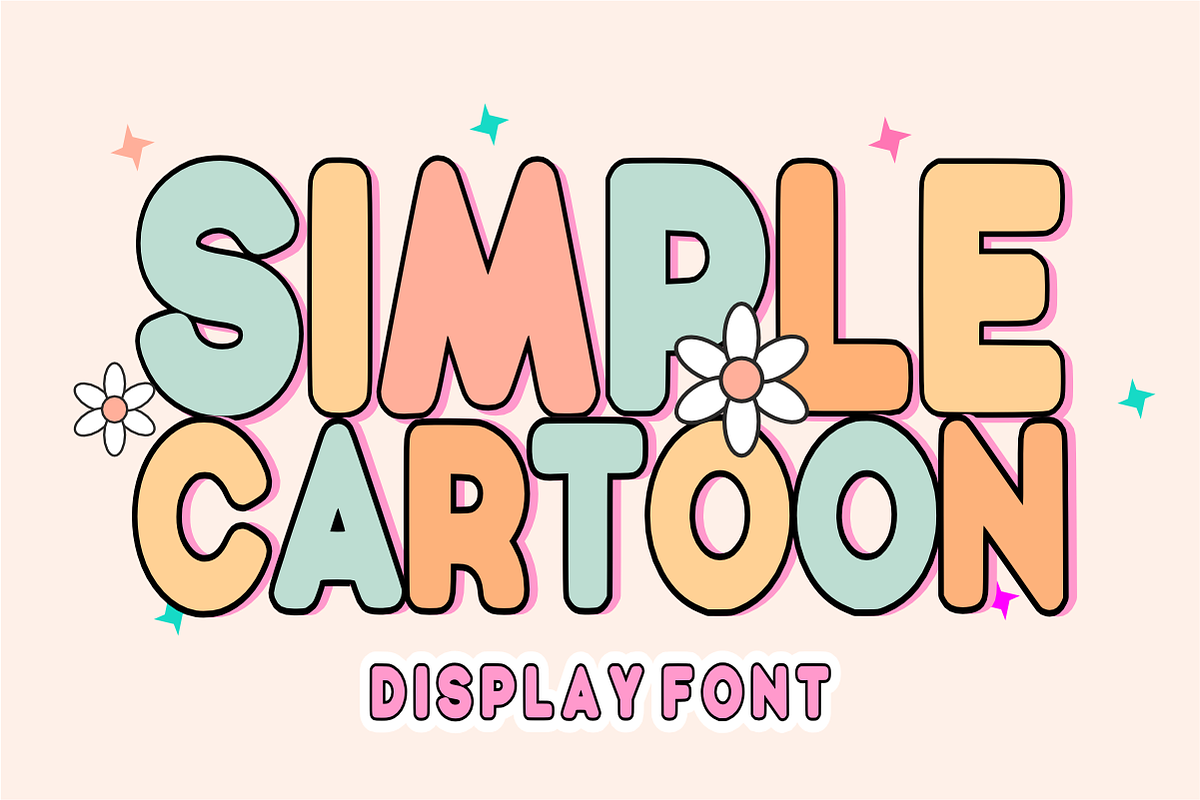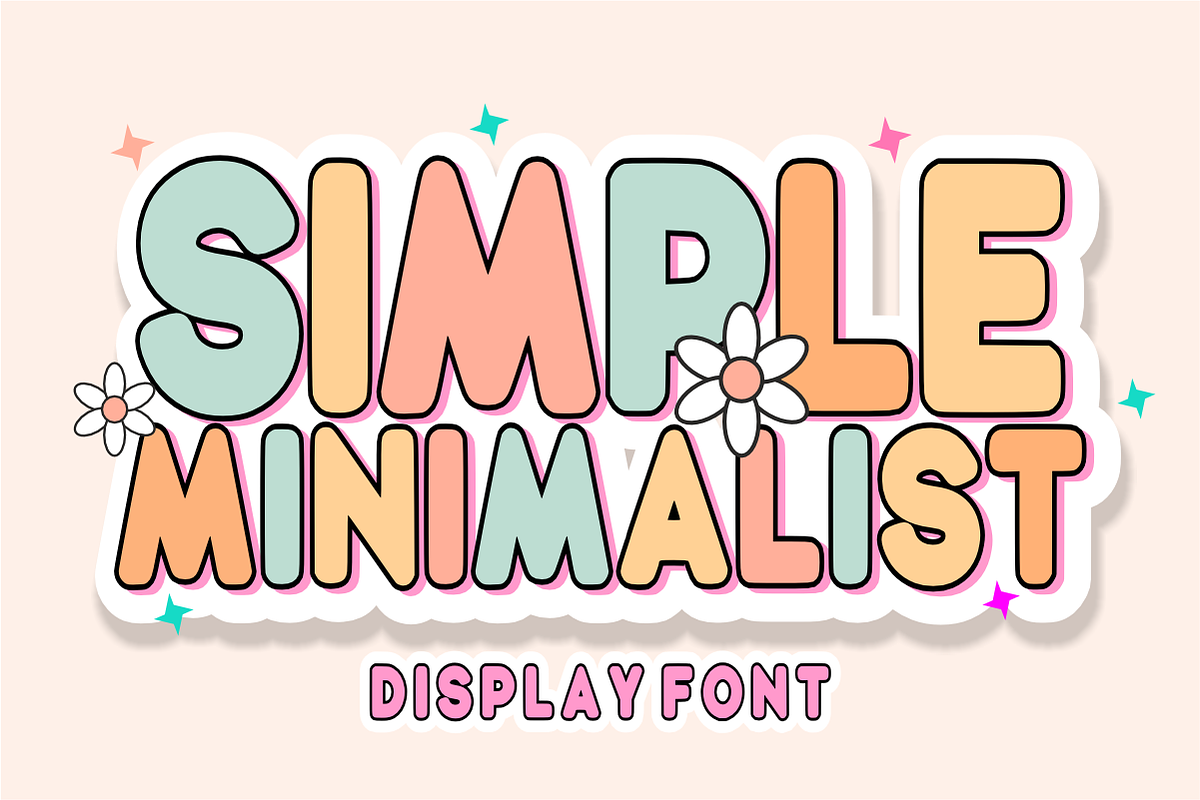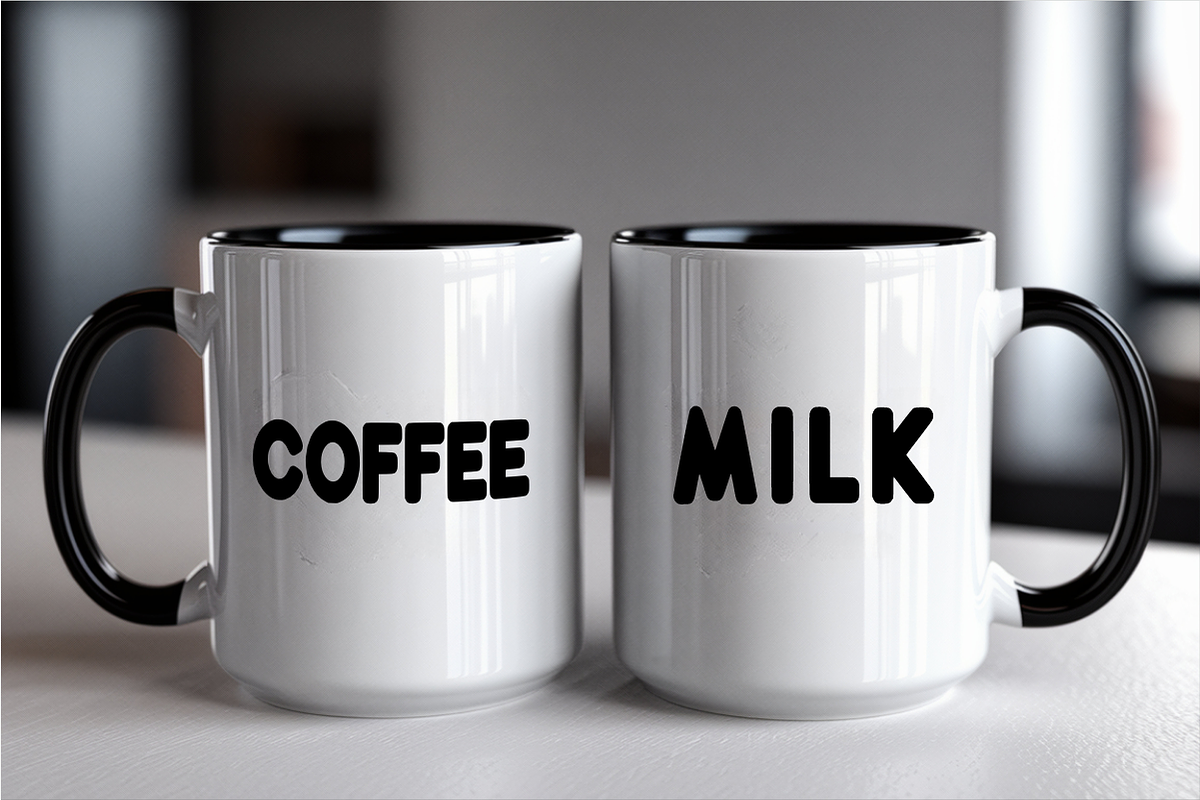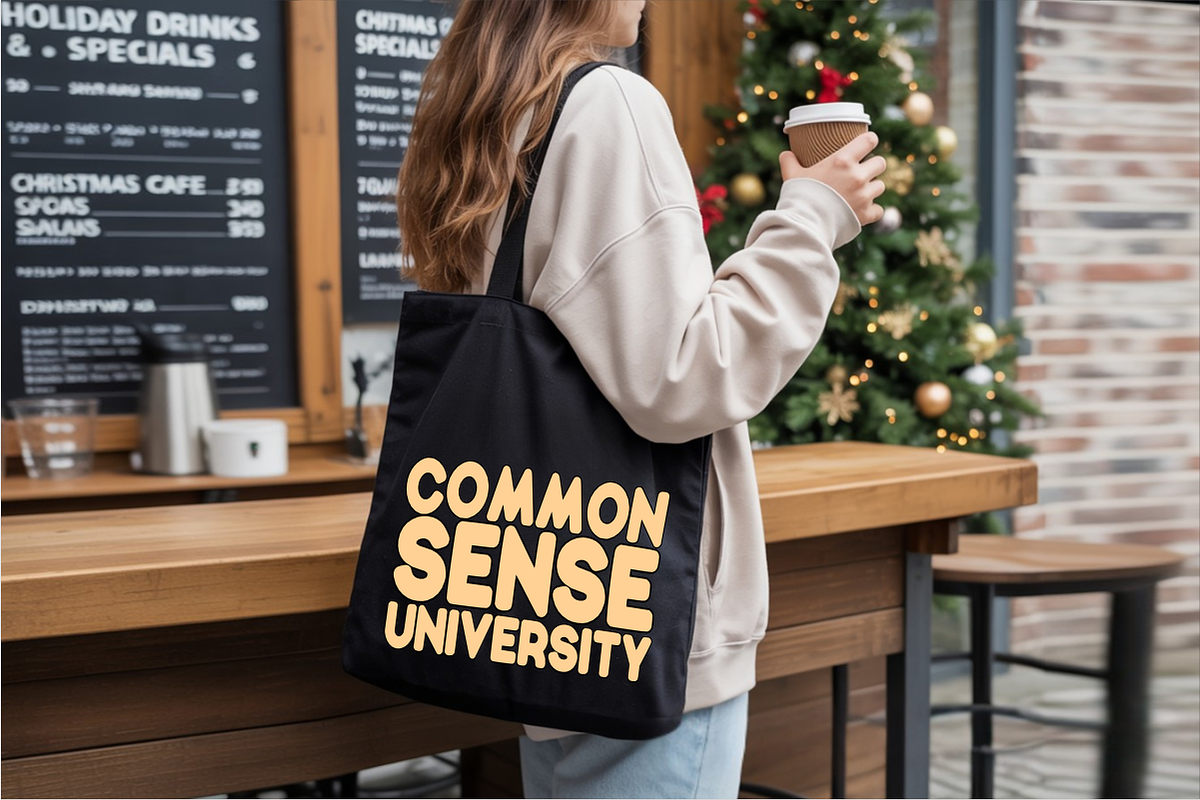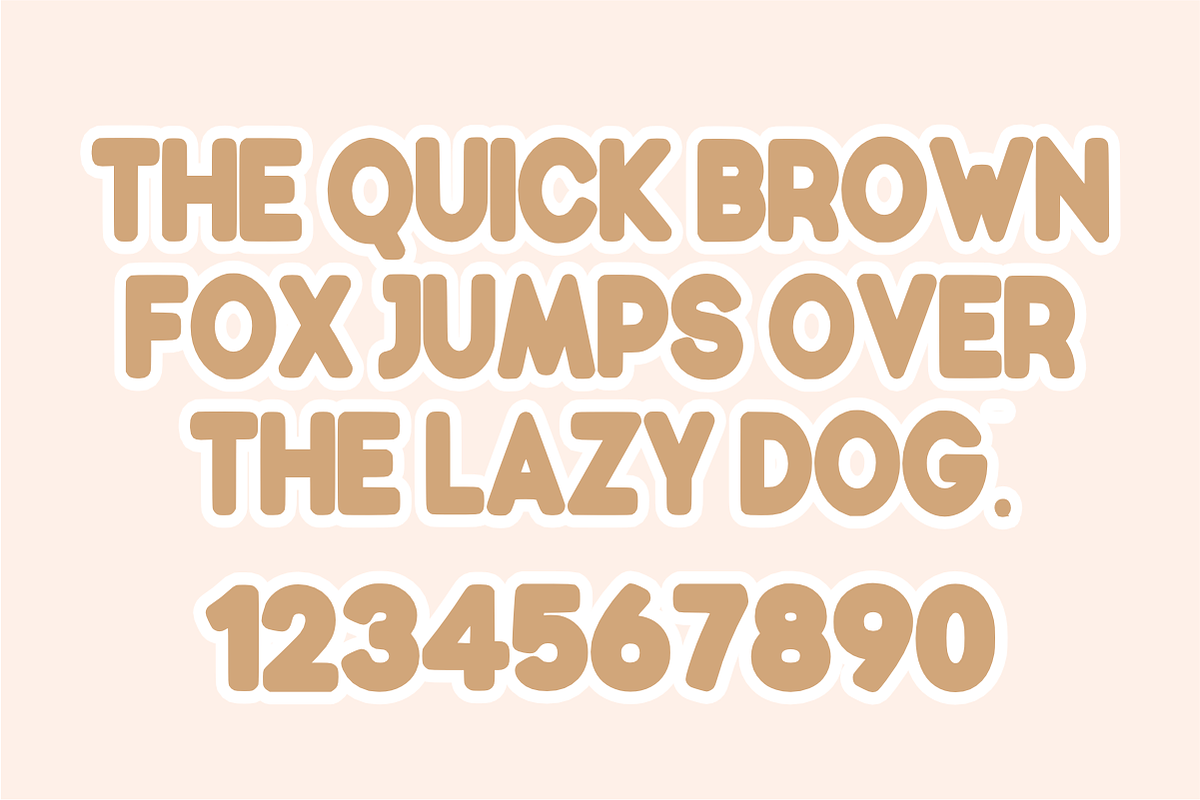
Simple Minimalist - Groovy Font
Simple Minimalist is a bold, playful display font featuring a delightful retro groovy style with smooth, rounded lines. Perfectly channeling a nostalgic 70s vibe with a clean modern twist, this fun font is ideal for trendy die-cut stickers, boho designs, and cheerful summer layouts. Every character is cleanly vectorized to guarantee smooth, effortless weeding and cutting on Cricut and Silhouette machines.
Ideal For:
Retro 70s graphics, daisy flower themes, and groovy party invitations
Custom die-cut stickers, labels, and vibrant planner decals
Kids' apparel, boutique t-shirts, and playful tote bag merchandise
Classroom decorations, school posters, and teacher resources
Fun business branding, casual packaging, and cheerful logos
Cricut, Silhouette, and DIY vinyl crafting projects